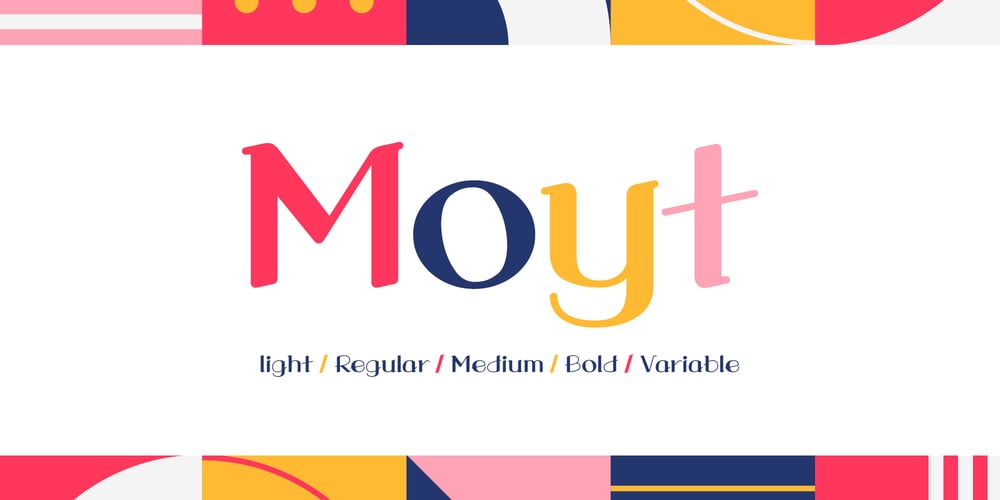
Moyt Font Family was designed by Taka Ikari and published by Outerend. Moyt contains 5 styles and family package options. “Moyt” is a display slab font that has an art deco retro feel in a slanted modern design. This family is perfect not only for TV and film titles and credits but also for holiday season materials such as greeting cards, Christmas cards and many other purposes. Individual fonts – light, regular, medium and bold – are available in addition to a variable version which can be perfect if you would like to adjust its weights in detail. Hope you’ll have fun using this typeface for your projects.